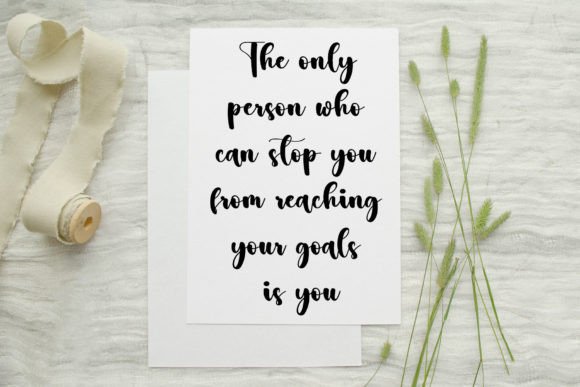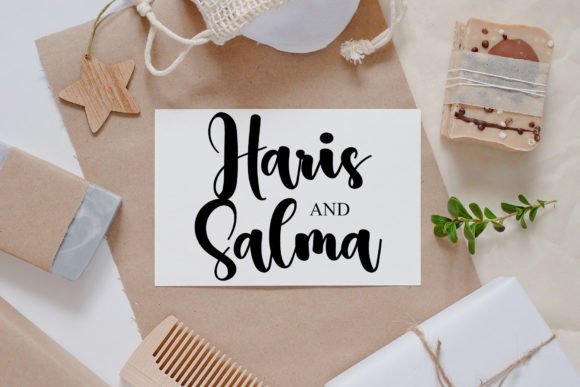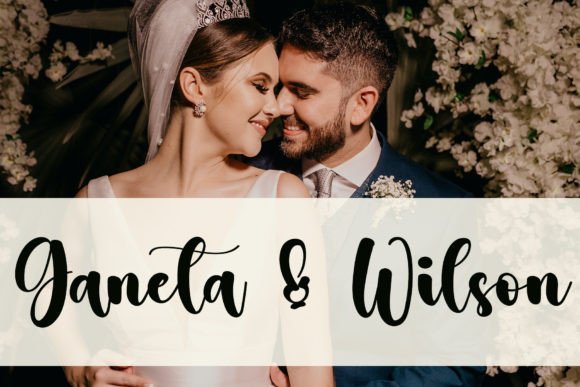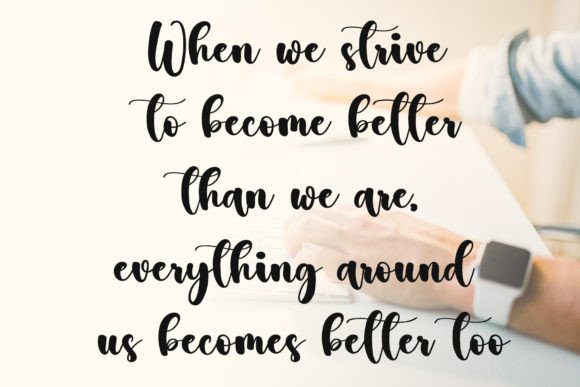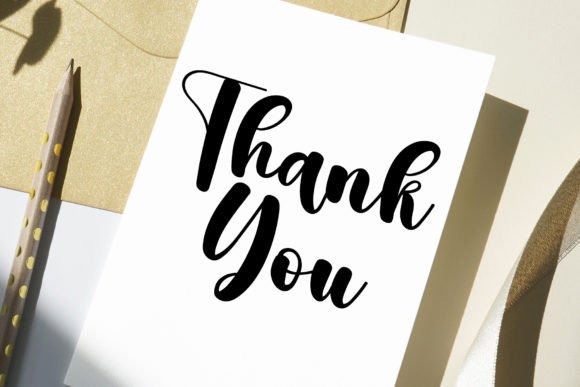
The Perfect Blend of Classic Elegance and Modern Style
Have you ever been working on a design project and suddenly, the perfect font pops into your head? For many of us, it’s a moment of pure creative bliss. That’s exactly what happened when the designers behind Darling Font set out to create a stylish handwritten font that would elevate any project to new heights.
Darling Font is more than just a pretty face – it’s a carefully crafted tool designed to add a touch of timeless classic calligraphy to your work. With its balanced and varied style, it’s the perfect choice for anyone looking to add a little extra flair to their designs. Whether you’re a seasoned pro or just starting out, Darling Font is a valuable asset that’s sure to become a staple in your design toolkit.
Darling Font Key Features
- Unique Characteristics: Darling Font features a distinctive, elegant script design with intricate details and subtle flair, making it perfect for creating visually appealing and sophisticated typography.
- Font Styles: Darling Font comes in multiple styles, including Regular, Italic, Bold, and Bold Italic, allowing designers to mix and match styles to achieve a unique visual effect.
Darling Font Review
I recently had the chance to work with the Darling Font, and I must say it’s a mixed bag. On the one hand, here are some things that really work well: ✨ Beautifully crafted letterforms, ✨ Elegant script style, ✨ Great for titles and headings, and ✨ Versatile in its uses.
- ✨ The font’s flowing curves and flourishes make it perfect for creating a sense of luxury and sophistication.
- ✨ It’s highly customizable, allowing designers to tweak the font to fit their specific needs.
- ✨ The Darling Font is a great choice for designers looking to add a touch of elegance to their projects.
However, there are some limitations to consider: ⚠️ Limited character set, ⚠️ May not be suitable for body text, and ⚠️ Can be overused if not paired with other fonts.
- ⚠️ The font’s limited character set may cause issues for designers working on projects that require a wide range of characters.
- ⚠️ Using the Darling Font for body text can lead to readability issues, especially at smaller font sizes.
- ⚠️ The font’s elegance can quickly become overwhelming if not balanced with other, more subdued fonts.
Overall, I think the Darling Font is a great choice for designers looking to add a touch of luxury to their projects. However, it’s essential to be aware of its limitations and use it judiciously.
Use the Darling Font in conjunction with bold or italic text to create emphasis and visual interest.
The Darling Font is perfect for:
Marketing materials and advertisements
Alex Brush is a beautiful, elegant script font that can be used for various purposes such as wedding invitations, greeting cards, and other formal events. It’s perfect for adding a touch of sophistication and romance to your designs. Compared to Darling Font, Alex Brush has a more refined and delicate feel, making it suitable for formal and high-end designs.
Carolyna Pro is a modern script font that is ideal for creative and artistic projects. It features a unique, flowing style that can add a touch of whimsy and personality to your designs. Unlike Darling Font, Carolyna Pro has a more contemporary feel, making it perfect for fashion, beauty, and lifestyle designs.
For optimal readability, we recommend using the Darling Font at a minimum font size of 12 points and a line height of at least 1.5 times the font size. This will ensure clear and legible text in most applications.
Q: Does the Darling Font support languages other than English?
The Darling Font includes a comprehensive character set that supports a wide range of languages, including Latin, Cyrillic, Greek, and many others. However, please note that some languages may require additional font features or adjustments for optimal display.